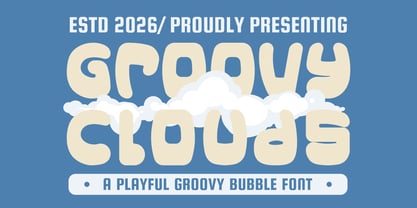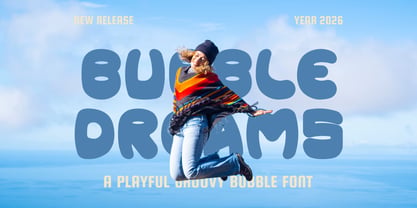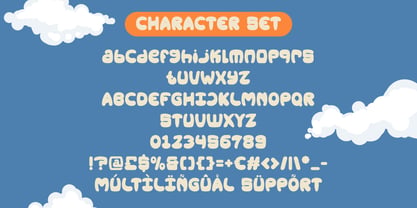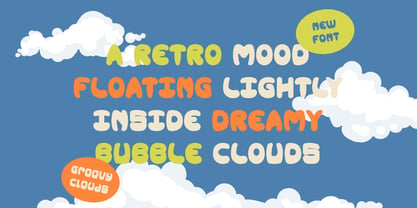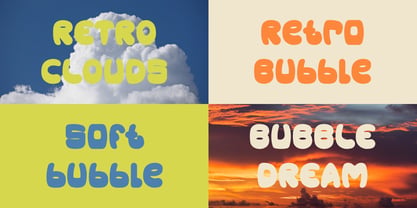
Groovy Clouds
La famille de polices Groovy Clouds a été conçue par Yesie Erma Yunita et publiée par Shanaf. Groovy Clouds contient 1 styles. En savoir plus sur cette famille
Groovy Clouds Groovy Bubble Font is a bold display typeface built around soft, rounded letterforms and generous proportions. Each character feels wide and full, with smooth curves and minimal sharp angles. Stroke weight stays consistently thick, creating a solid and friendly presence across words. The letter height feels balanced rather than tall, giving text a relaxed and approachable rhythm. Counters are open and rounded, helping maintain clarity even at larger sizes. The surface feels clean and smooth, without rough textures or sharp contrasts. Spacing between letters feels natural, which keeps words readable while preserving a playful tone. Uppercase and lowercase characters share the same bubbly structure, allowing flexible combinations for expressive layouts. Numbers and symbols follow the same rounded logic, keeping visual consistency across designs. Groovy Clouds Groovy Bubble Font reflects a retro and groovy style inspired by vintage lettering and cheerful pop culture aesthetics. The overall mood feels playful, light, and friendly, with a nostalgic character that suits expressive branding. This font works especially well for logos, branding systems, headlines, posters, packaging, and advertising materials. It also fits titles, book covers, magazine layouts, stickers, greeting cards, and creative business projects. The bold shapes help messages stand out quickly while remaining easy to read. Groovy Clouds Groovy Bubble Font supports designers who want to communicate joy, creativity, and warmth. The font feels suitable for both digital and print use, especially when personality matters. Groovy Clouds Groovy Bubble Font adds charm and visual energy to projects that aim for fun, retro, and bold expression.